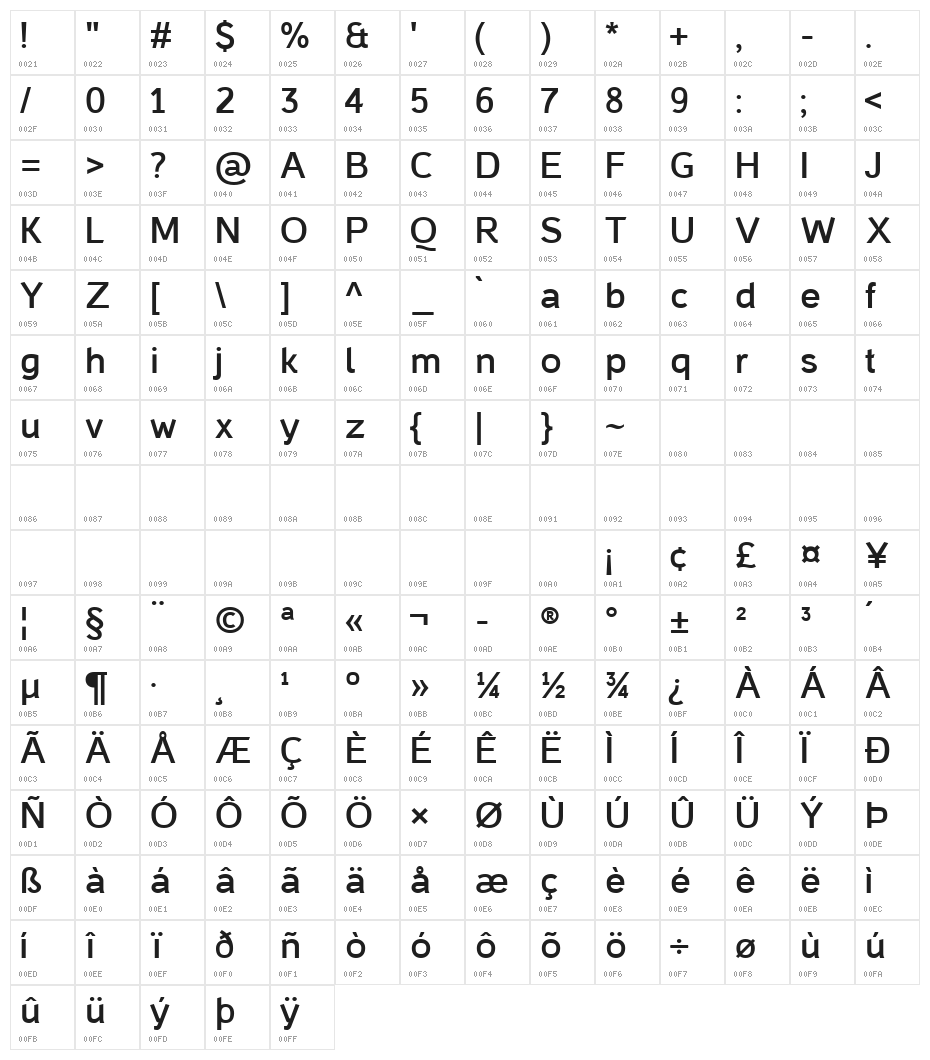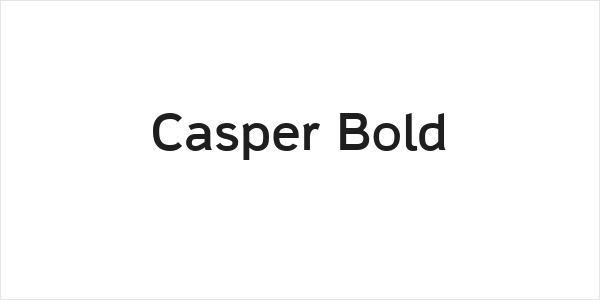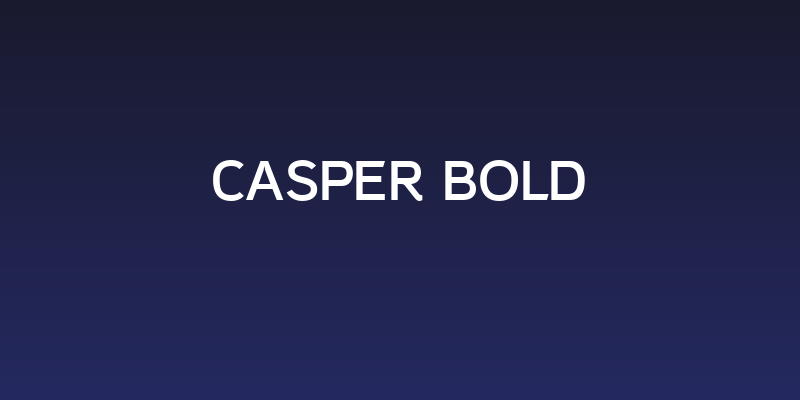
Casper Bold Font
| उपयोग का मामला | Headlines, Logos, Digital interfaces |
| सुझाए गए प्रोजेक्ट | Ideal for branding, advertising, headlines, and digital interfaces where clarity and impact are essential. |